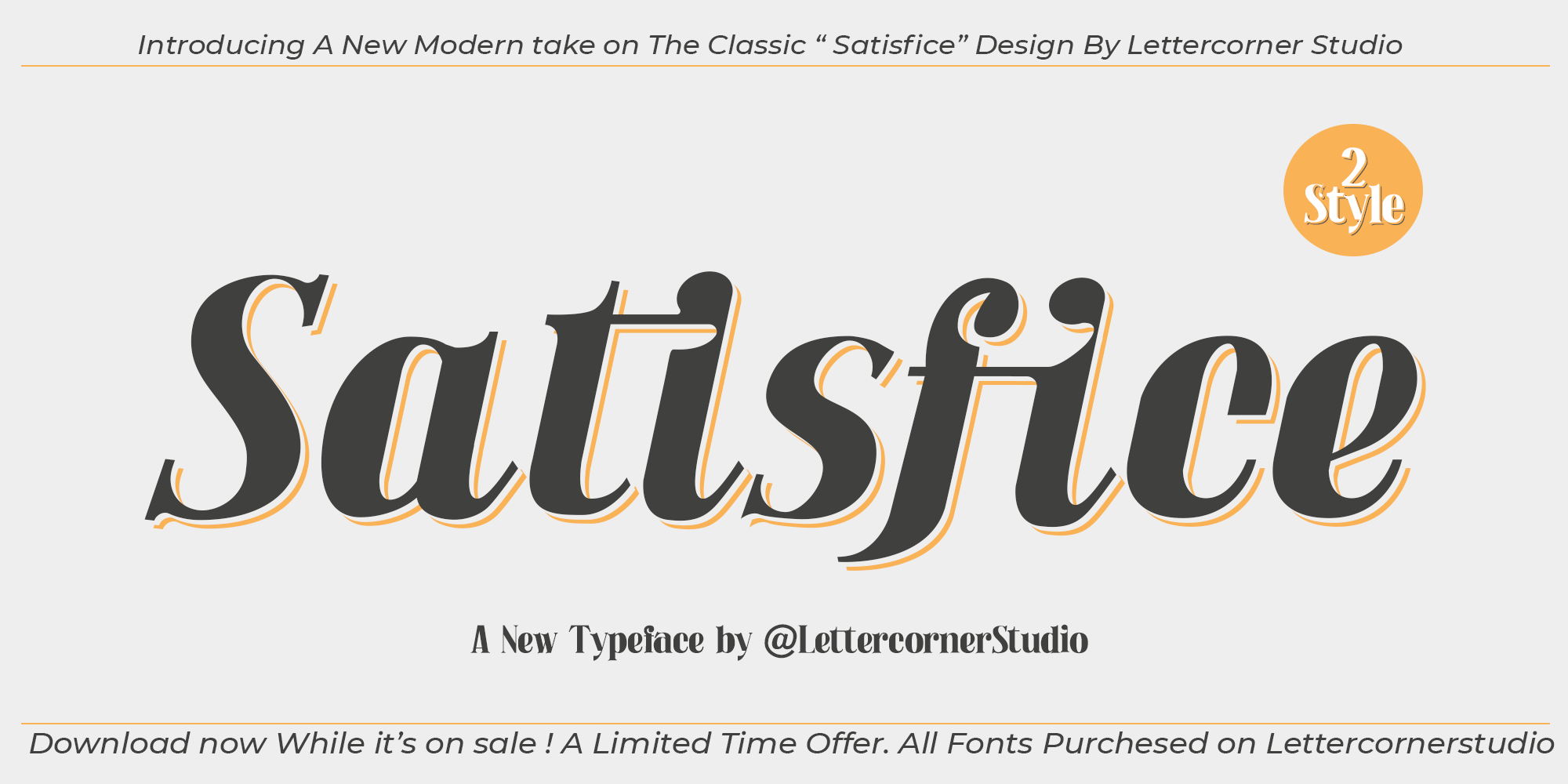
Satisfice Font is perfect for customer satisfaction surveys, quality assurance communications, service excellence branding, customer experience materials, satisfaction guarantee promotions, feedback system interfaces, quality improvement campaigns, customer service training materials, performance evaluation documents, client appreciation messages, satisfaction measurement tools, and customer-focused marketing campaigns. This reassuring typeface excels in applications requiring trust and reliability messaging, making it ideal for service companies, customer experience teams, quality management organizations, and businesses emphasizing customer satisfaction and service excellence.
What makes Satisfice Font exciting is its exceptional ability to convey satisfaction, reliability, and trustworthy service through balanced typography. The font features harmonious letterforms with comfortable proportions and friendly character variations that instantly communicate approachability and dependability. Its carefully balanced spacing and reassuring aesthetic create an atmosphere of trust and customer satisfaction, while maintaining excellent readability across all applications. The font's distinctive personality embodies the essence of quality service and customer contentment, making it perfect for brands seeking to emphasize their commitment to customer satisfaction and service excellence.
The Satisfice Font family typically includes multiple weights such as Light, Regular, Medium, Bold, and Black variations, along with their corresponding italic styles. Many collections also feature friendly alternates, service-oriented ligatures, and satisfaction-focused elements that enhance the font's trustworthy character. Some comprehensive packages include customer service symbols, quality indicators, and satisfaction-related glyphs that provide complete design flexibility for customer experience and service quality projects.
Satisfice Font Free Download represents the perfect fusion of trustworthy aesthetics and typographic excellence. This remarkable typeface brings instant credibility and customer-focused appeal to any project, making it particularly valuable for service organizations, customer experience teams, and quality-focused businesses seeking to establish reliable, satisfaction-oriented brand identities. The font's versatile nature allows it to perform beautifully in both professional documentation and customer-facing communications.
Designers appreciate Satisfice Font for its ability to instantly convey trustworthiness, service quality, and customer satisfaction that builds confidence and loyalty. The font's excellent construction ensures smooth performance across various media and applications, while its reassuring appeal adds immediate credibility to any customer-focused design project. The comprehensive character set includes standard Latin characters, numerals, punctuation marks, and special symbols, making it suitable for customer communications, service documentation, and diverse satisfaction-focused applications.
This exceptional typeface successfully captures the essence of customer satisfaction and service excellence while offering modern functionality, providing designers with an authentic tool for creating memorable and impactful communications that resonate with audiences seeking reliable service, quality experiences, and trustworthy business relationships.